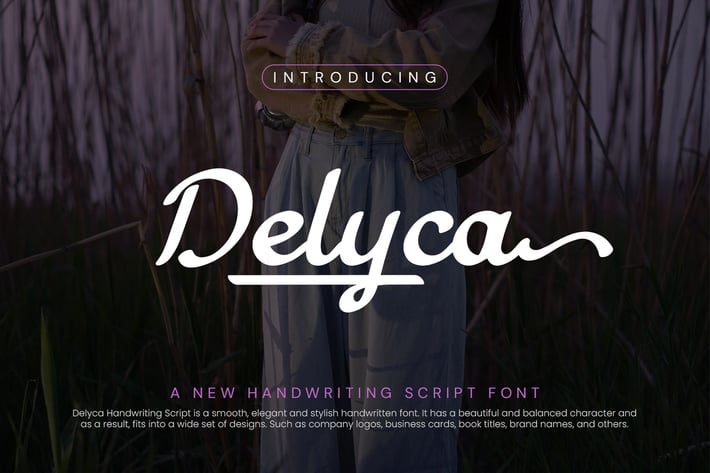
Delyca Handwriting Script Font
Delyca Handwriting Script is a smooth, elegant and stylish handwritten font.
It has a beautiful and balanced character and as a result, fits into a wide set of designs.
Such as company logos, business cards, book titles, brand names, and others. Delyca Handwriting Script is a smooth, elegant and stylish handwritten font.
It has a beautiful and balanced character and as a result, fits into a wide set of designs.
Such as company logos, business cards, book titles, brand names, and others. Its stylish alternation and binding make this font the perfect partner for any project.